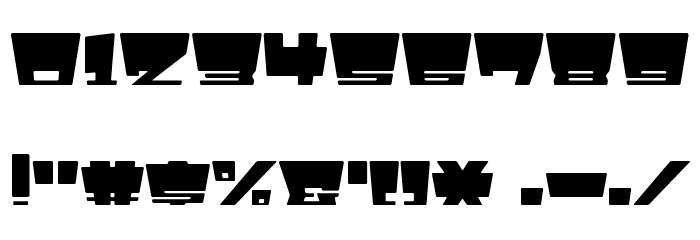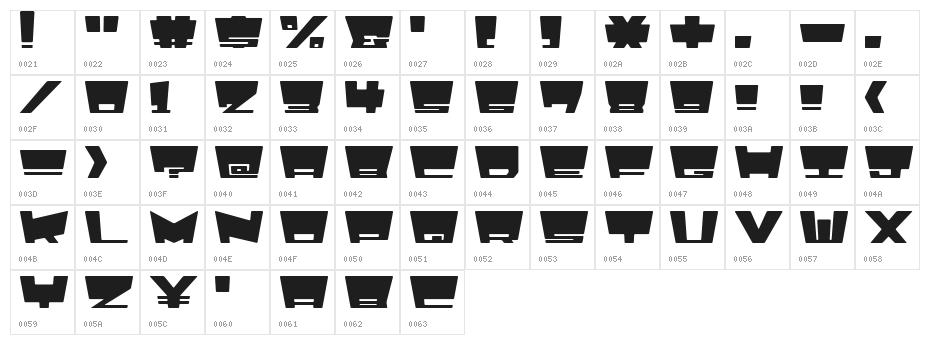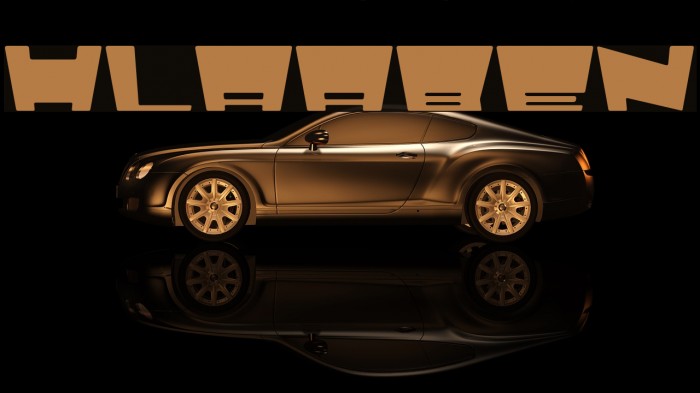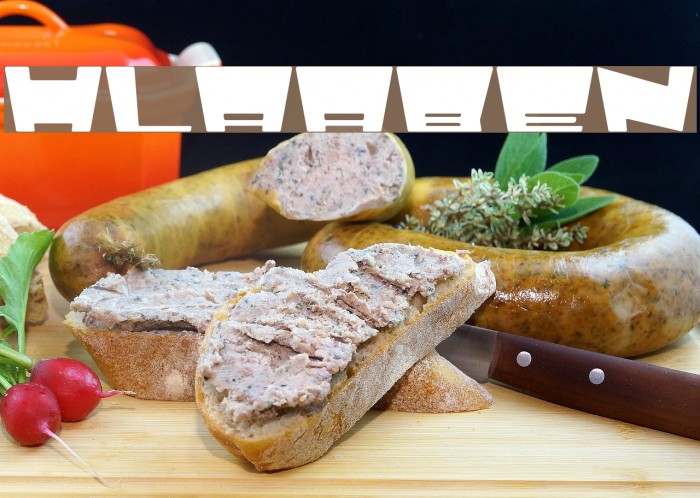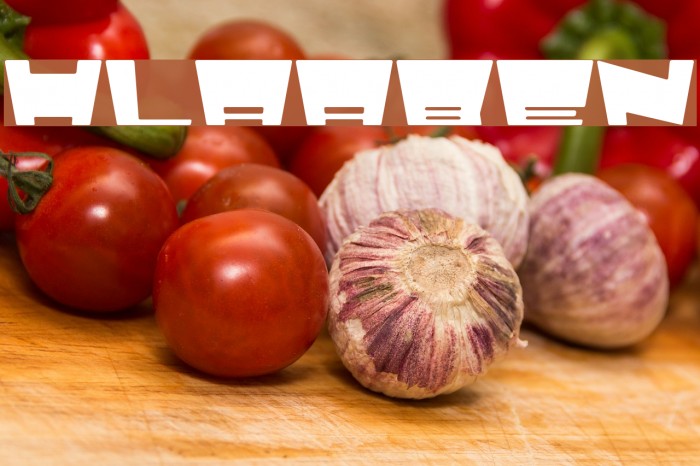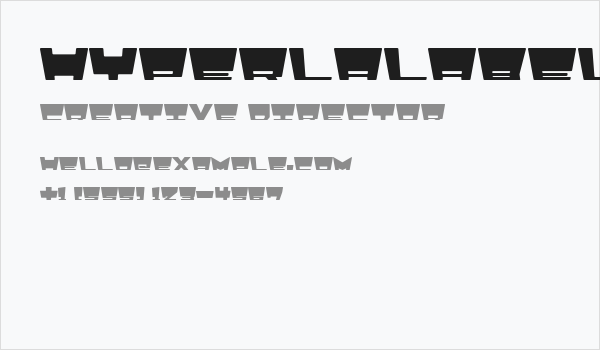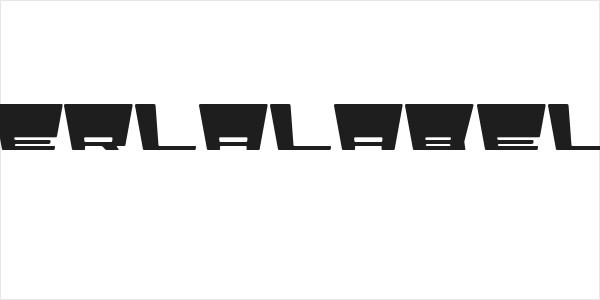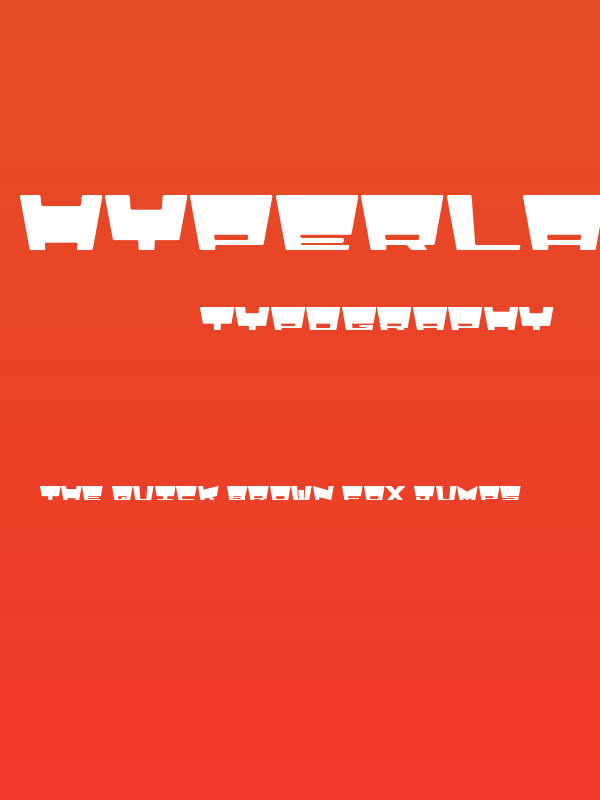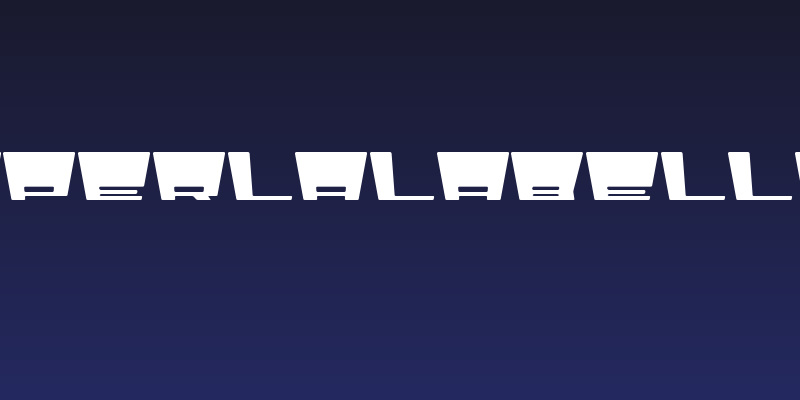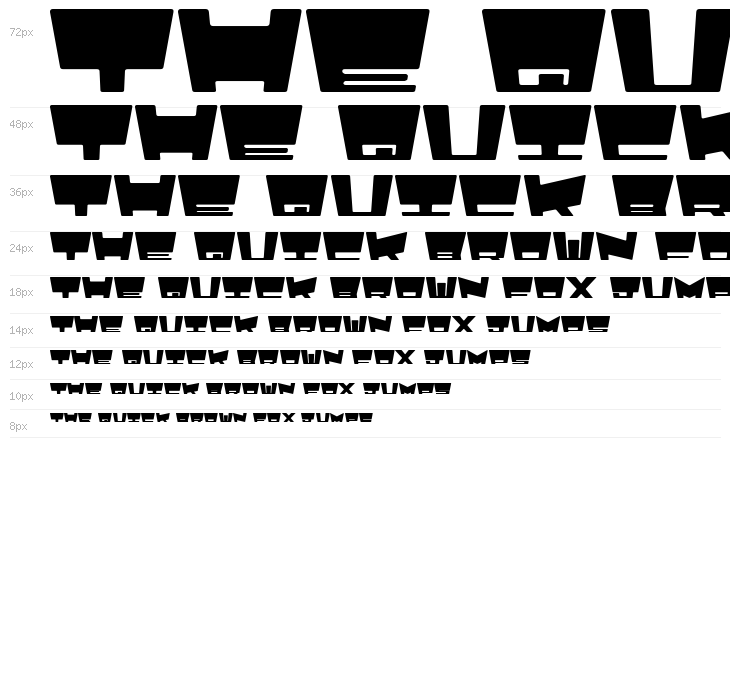
HyperLalabellEN Font
HyperLalabellEN Description
This font features a bold, geometric design with sharp angles and a futuristic aesthetic. The characters are wide and blocky, giving a sense of strength and modernity. The uppercase and lowercase letters maintain a consistent style, with the lowercase slightly smaller but equally bold. Numbers and special characters are designed to match the angular, edgy style of the alphabet, making the font cohesive and visually striking. The overall appearance is dynamic and eye-catching, suitable for projects that require a strong visual impact.
| Proposed Projects | Ideal for sci-fi themed designs, video game titles, posters, and branding that requires a modern, impactful look. |